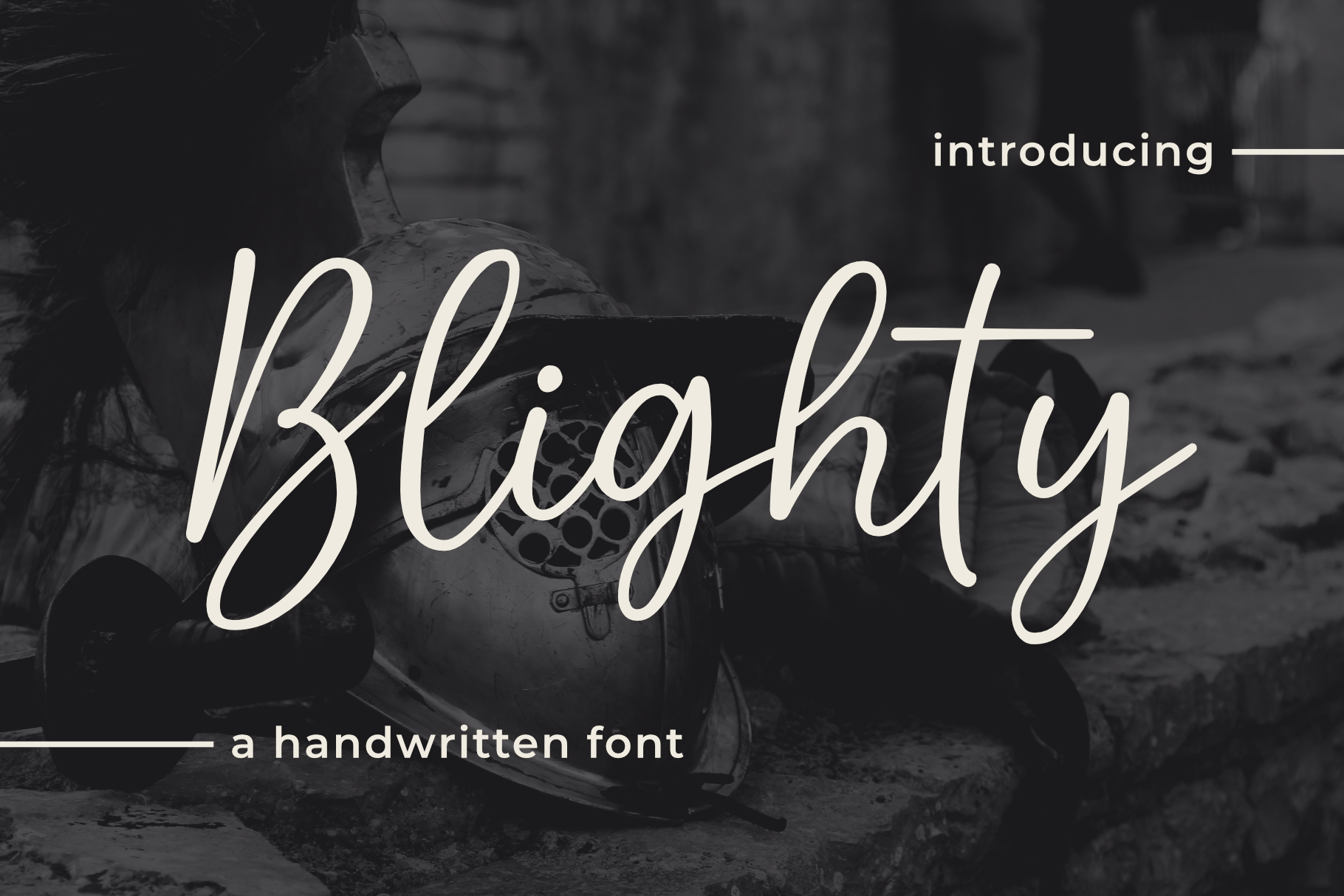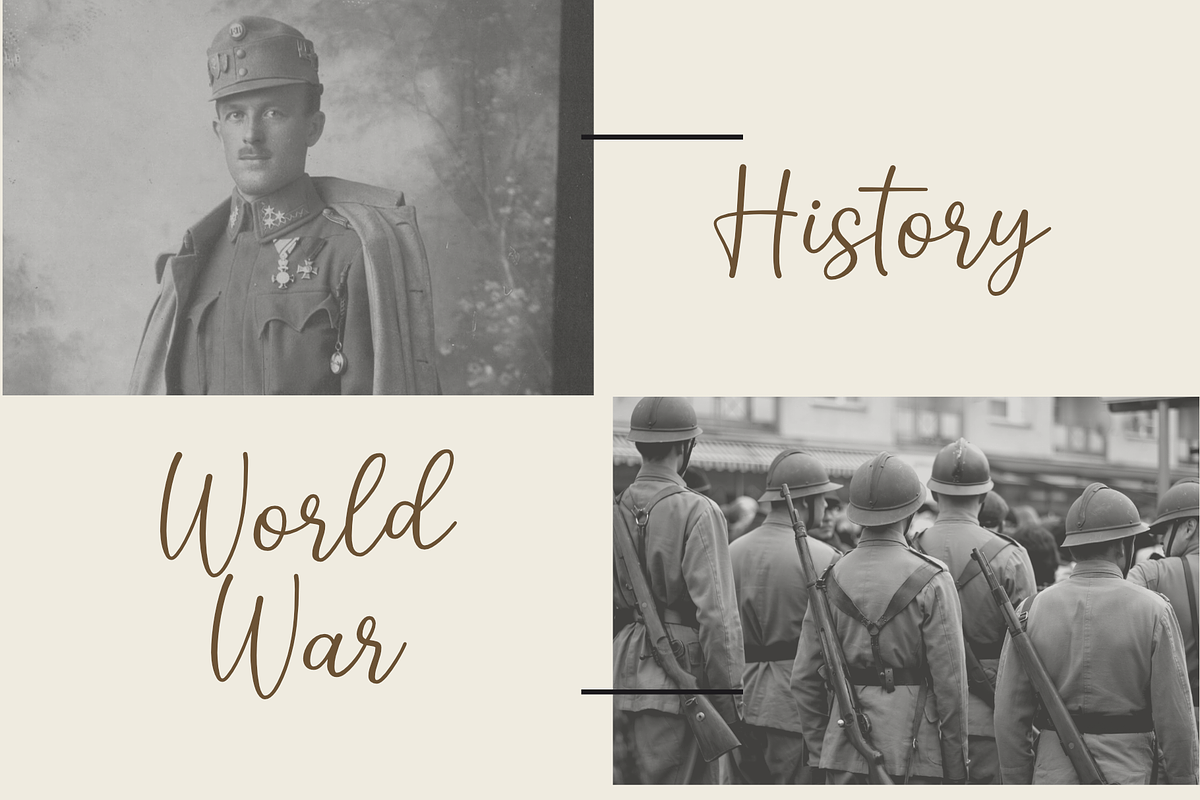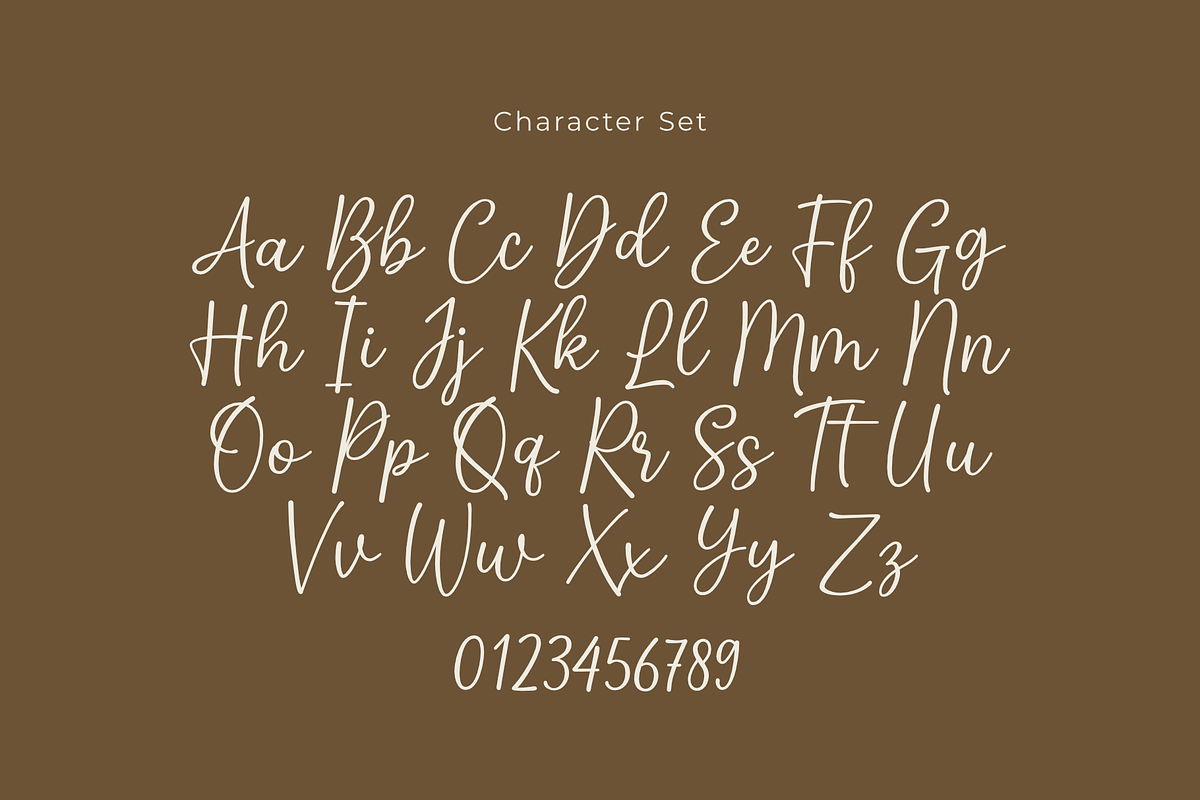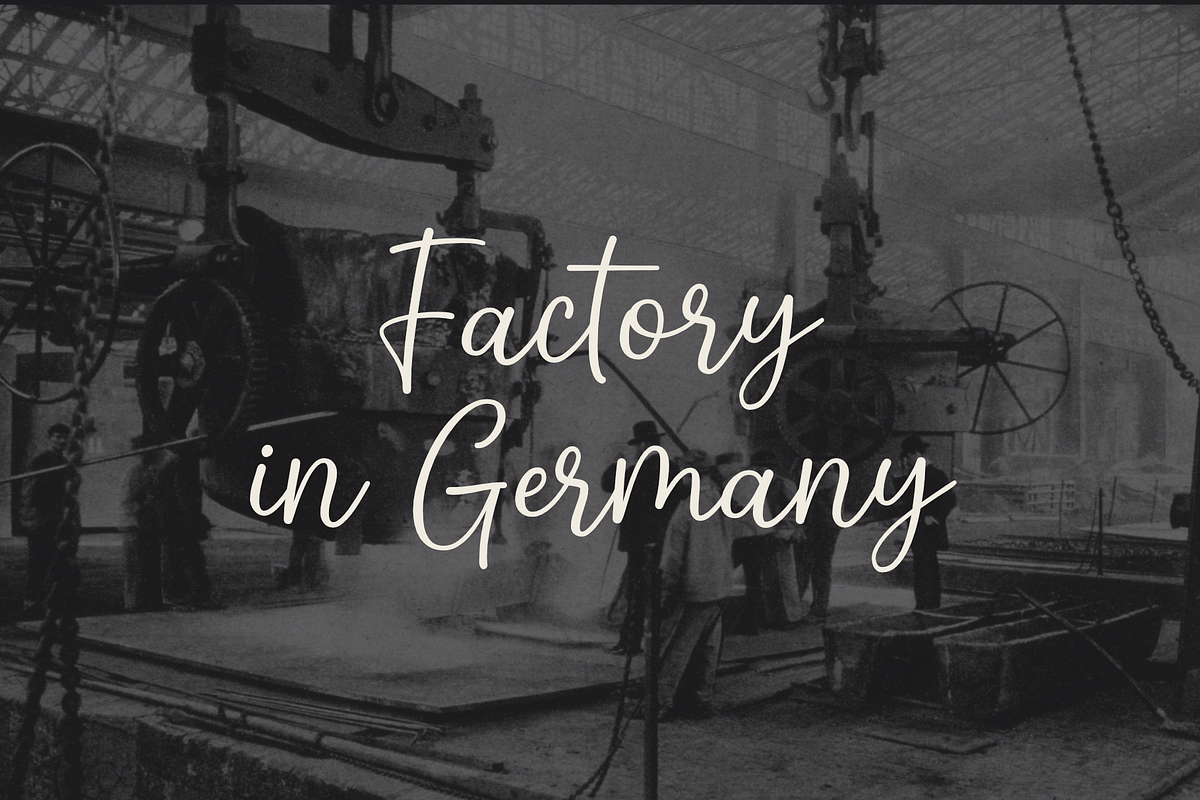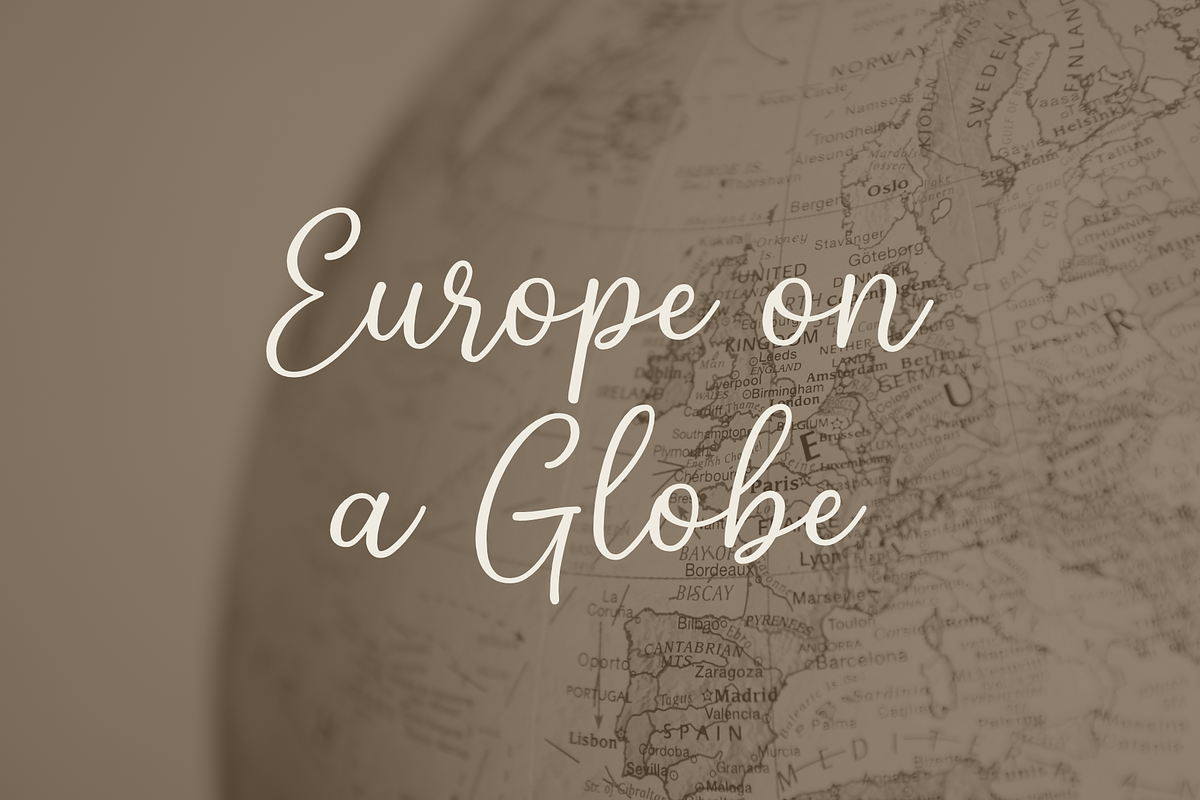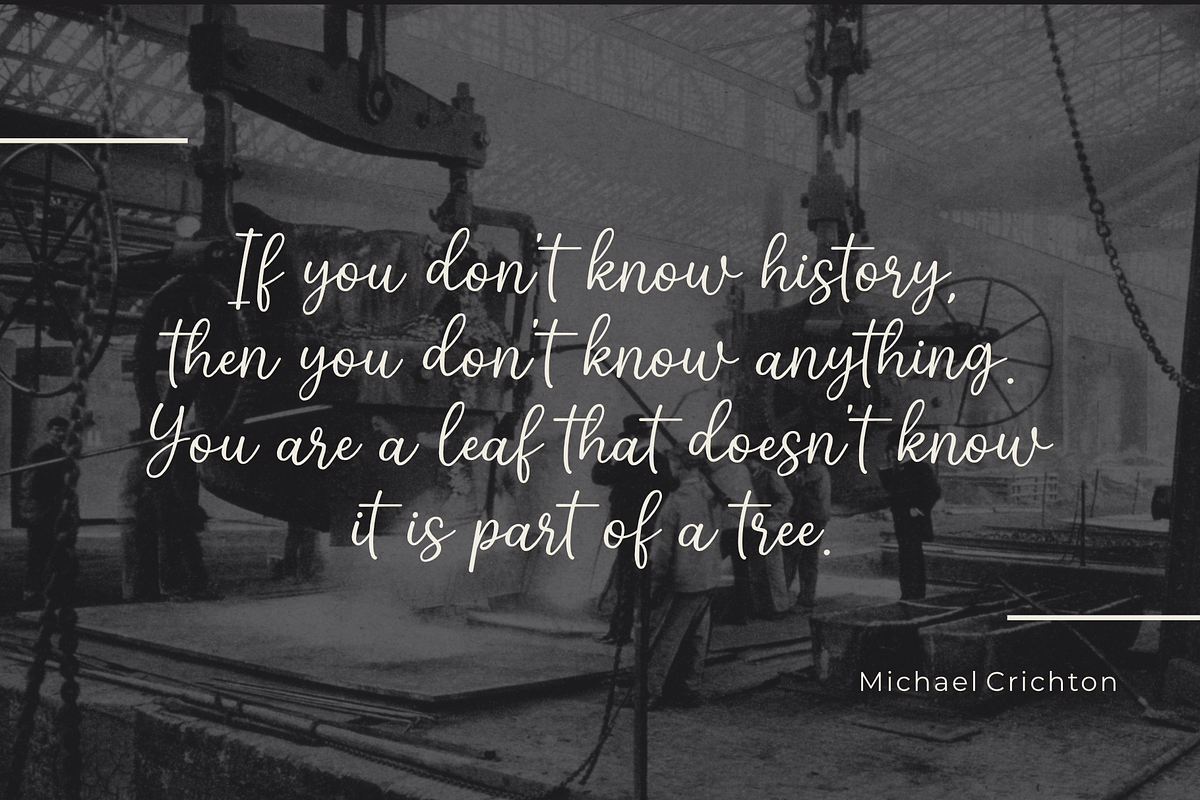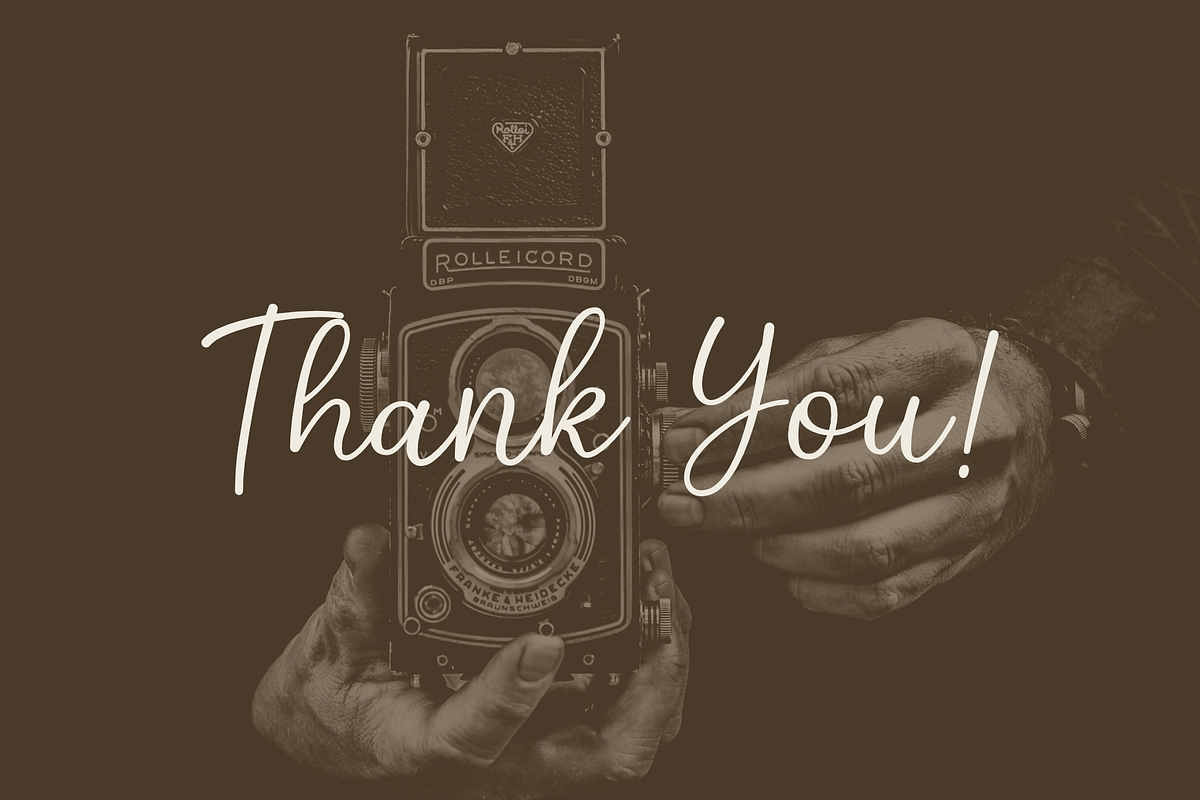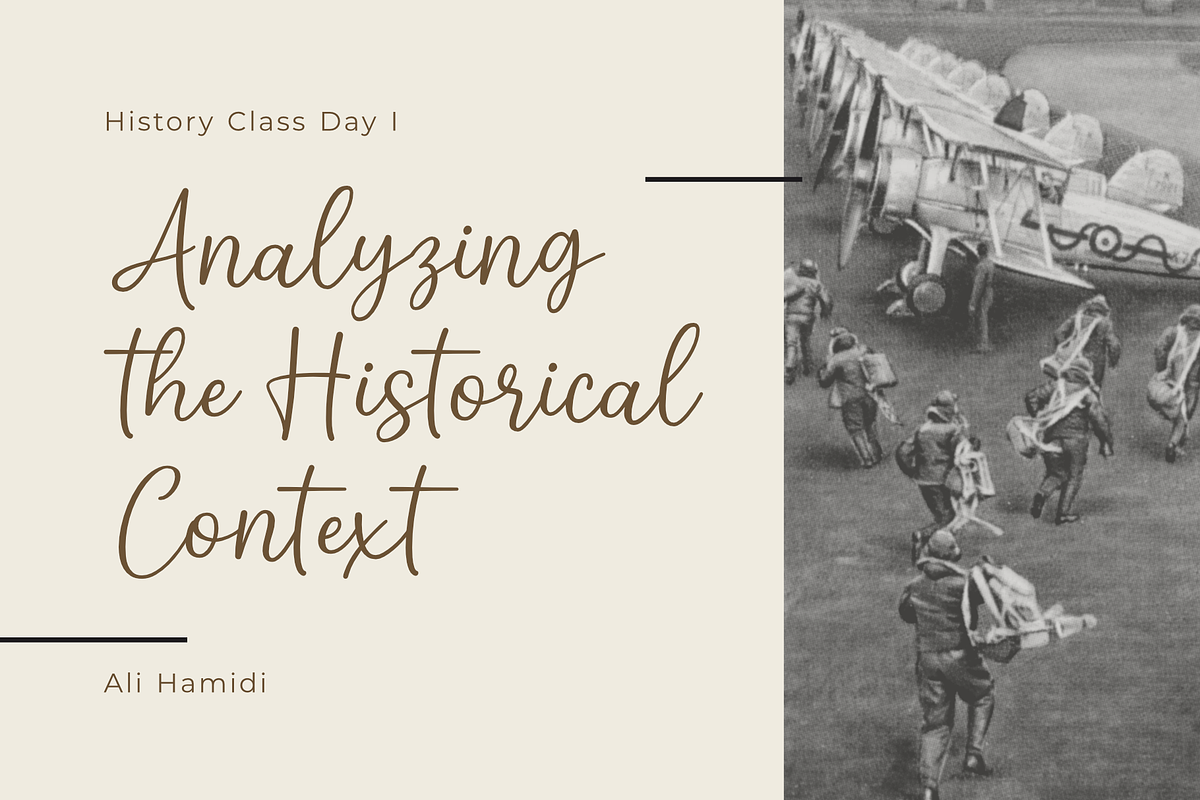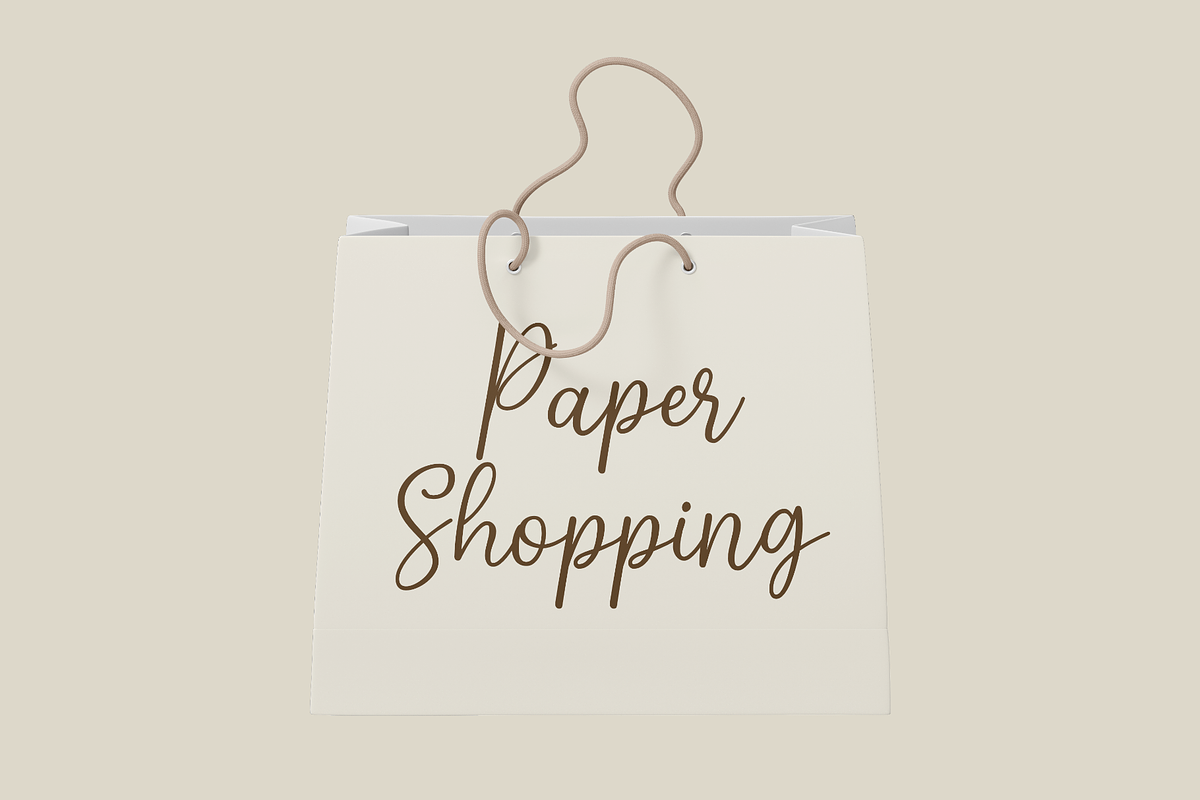
Blighty - a Handwritten Font
Blighty is simple and sweet handwritten font display. This font is suitable for handwriting logos, T-shirts, merchandise, quotes, social media posts, advertising, and a lot more!